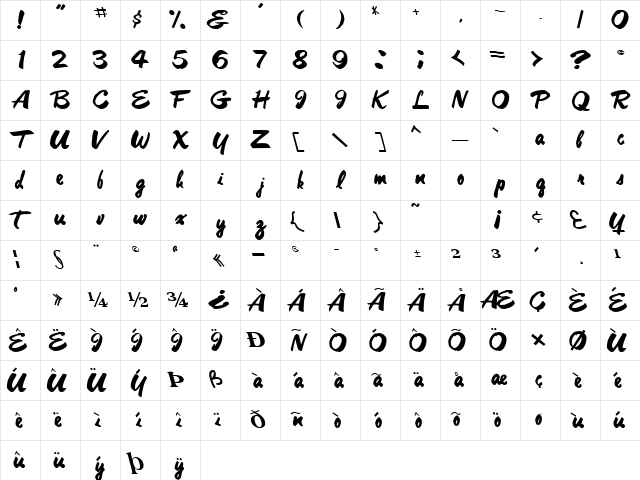
CleanCut56 Regular
CleanCut56 Family
CleanCut56 Regular
Design Context for CleanCut56
CleanCut56 is a composed and adaptable typeface that performs quietly and consistently across a wide range of design contexts.